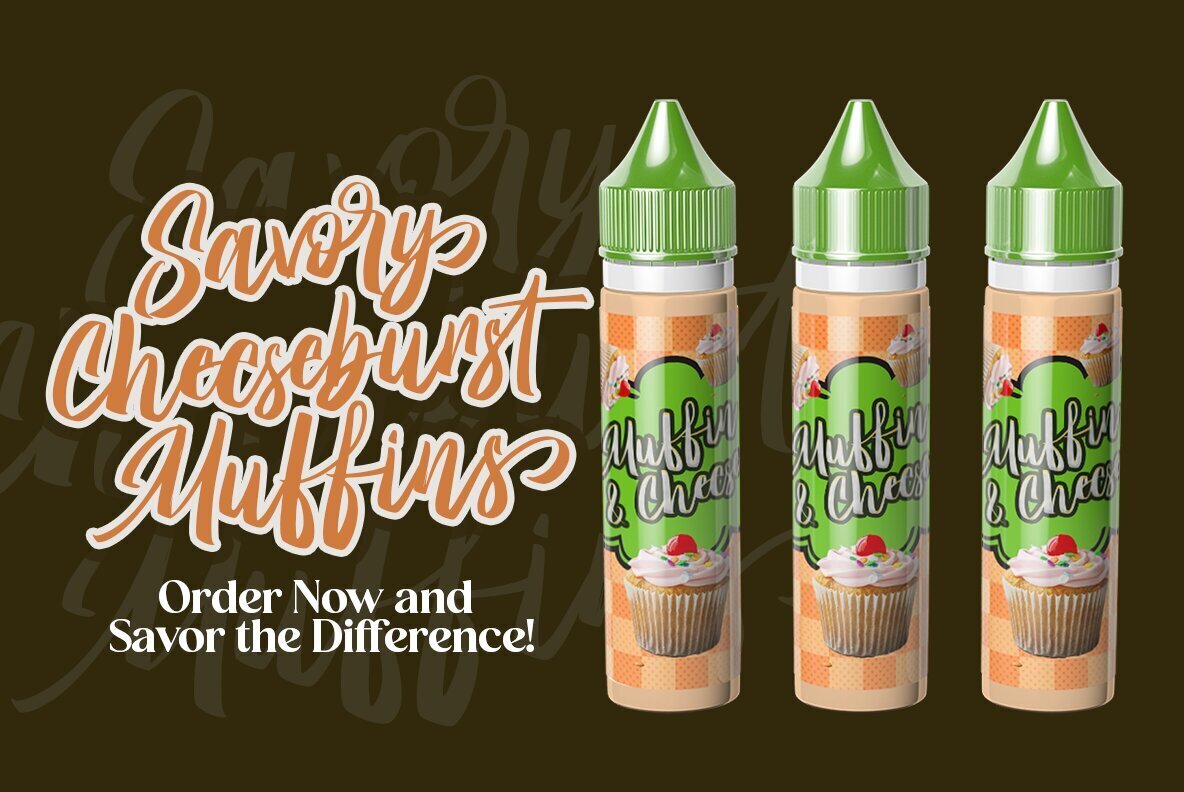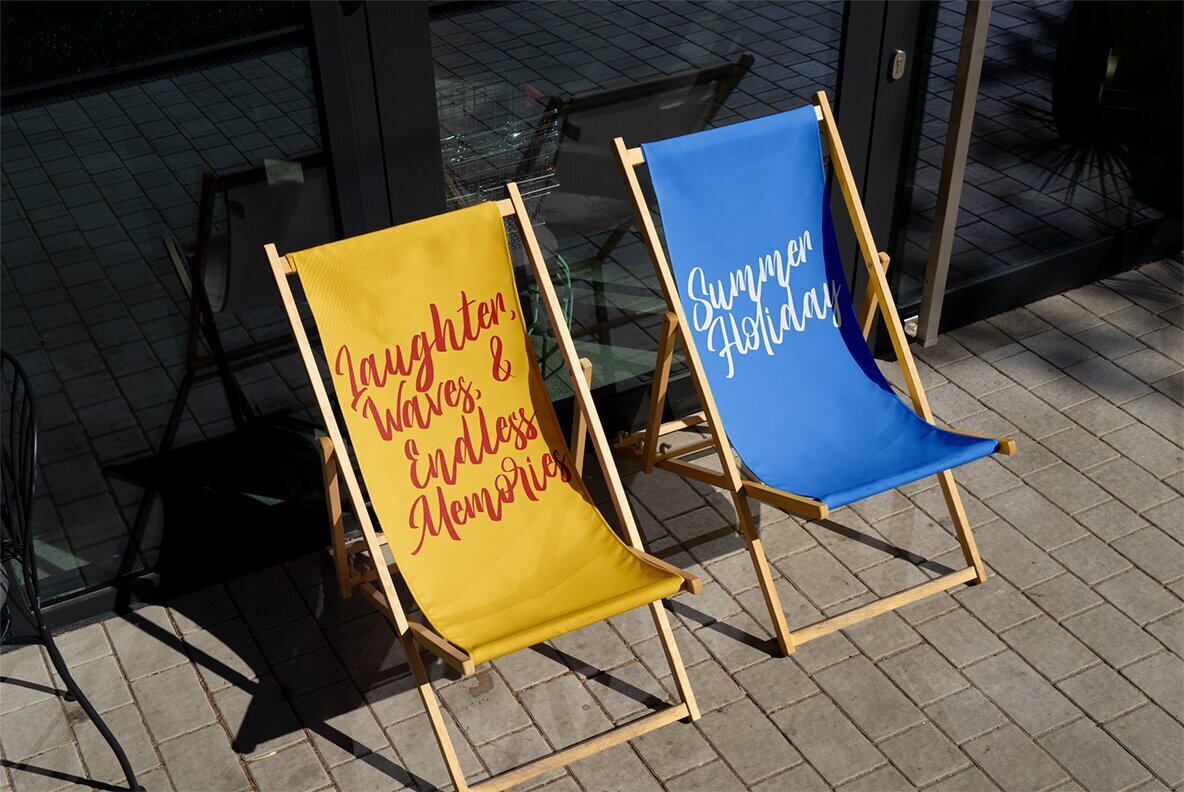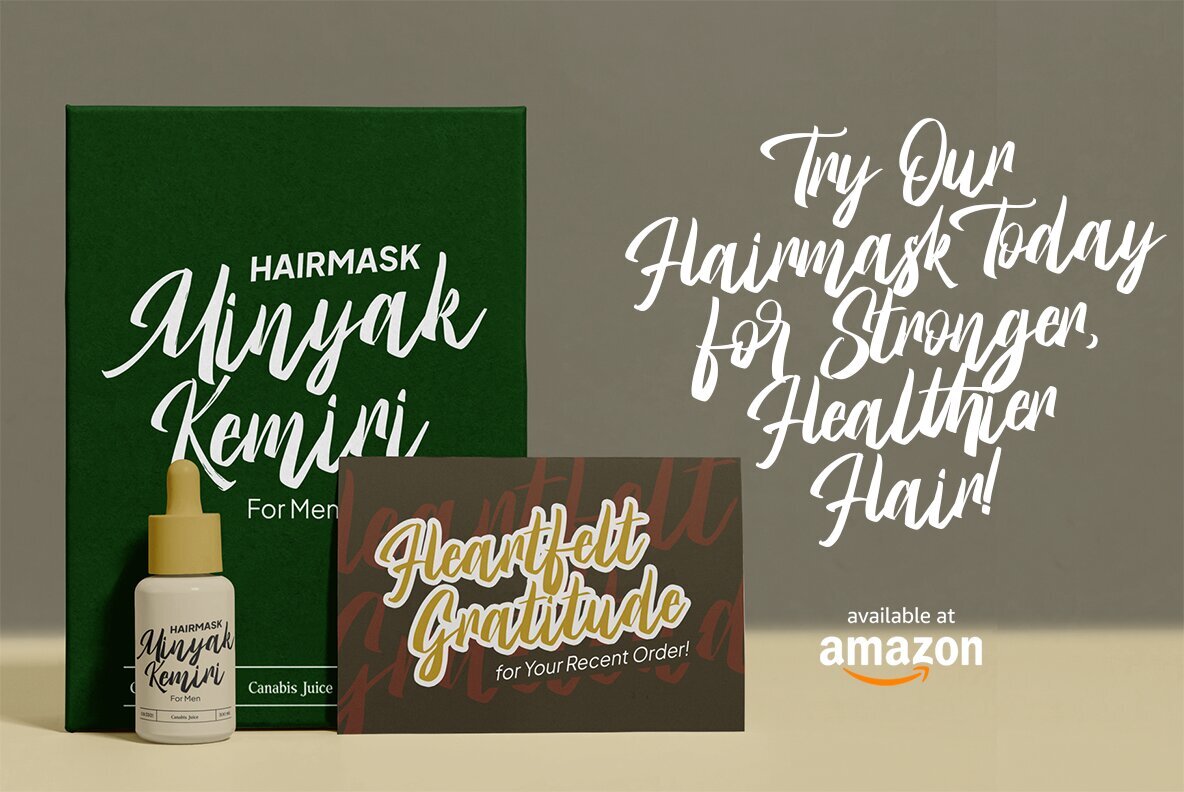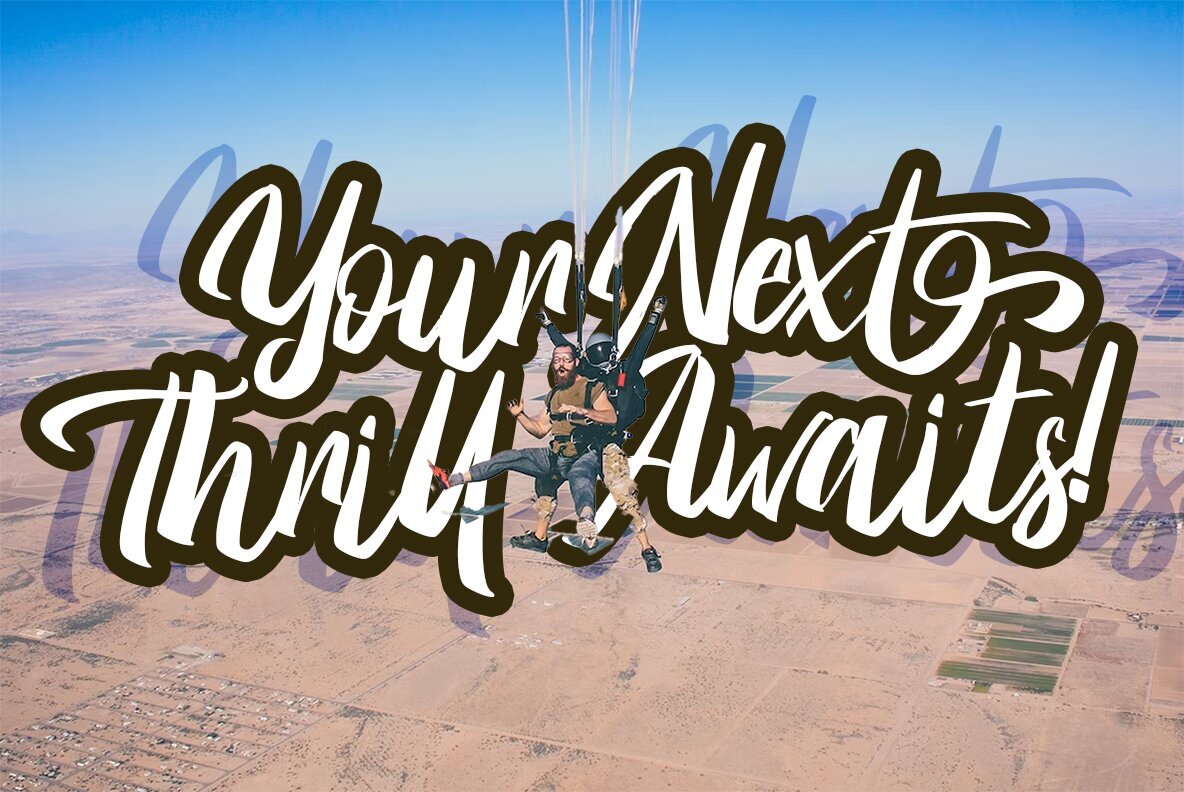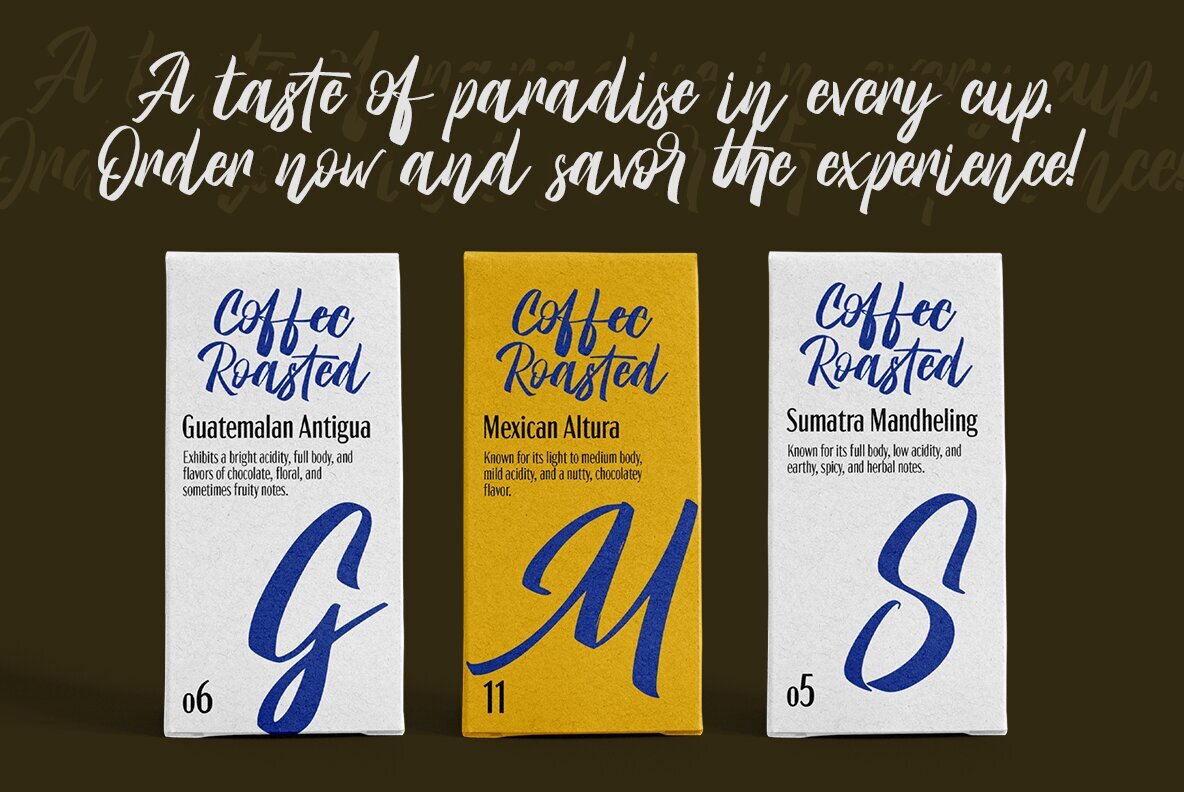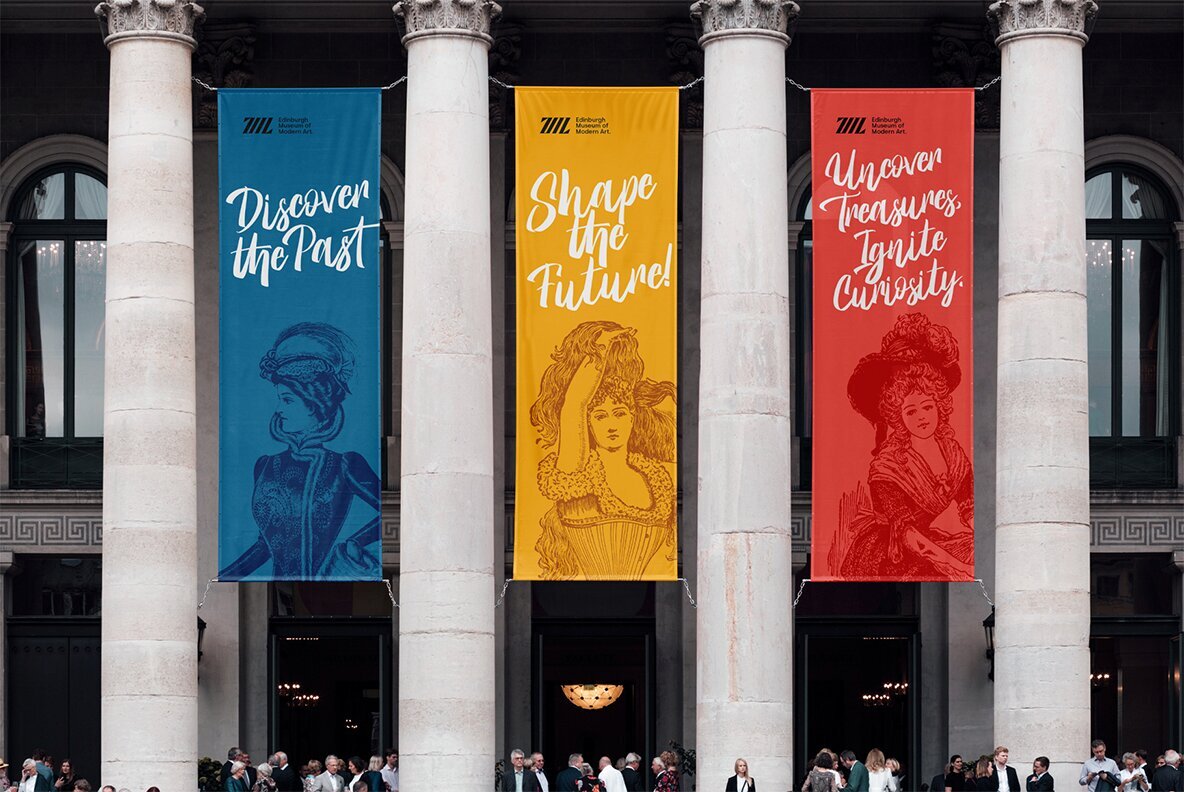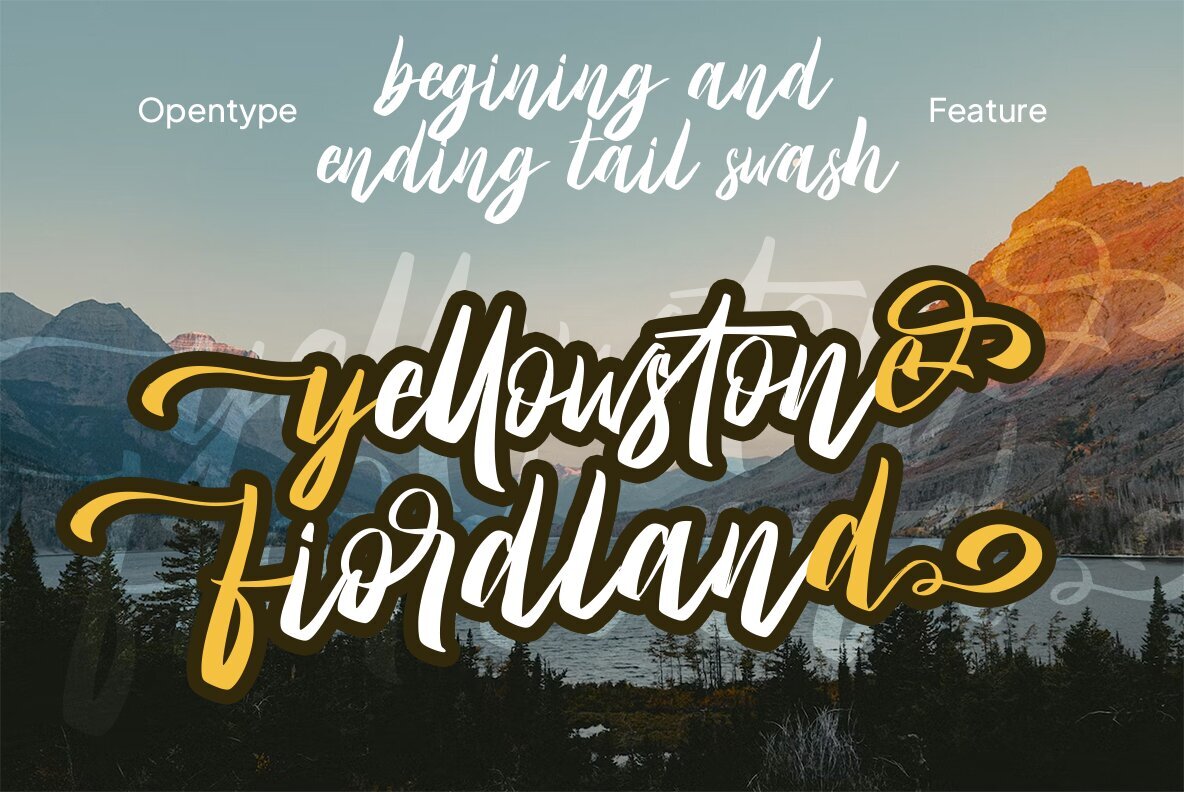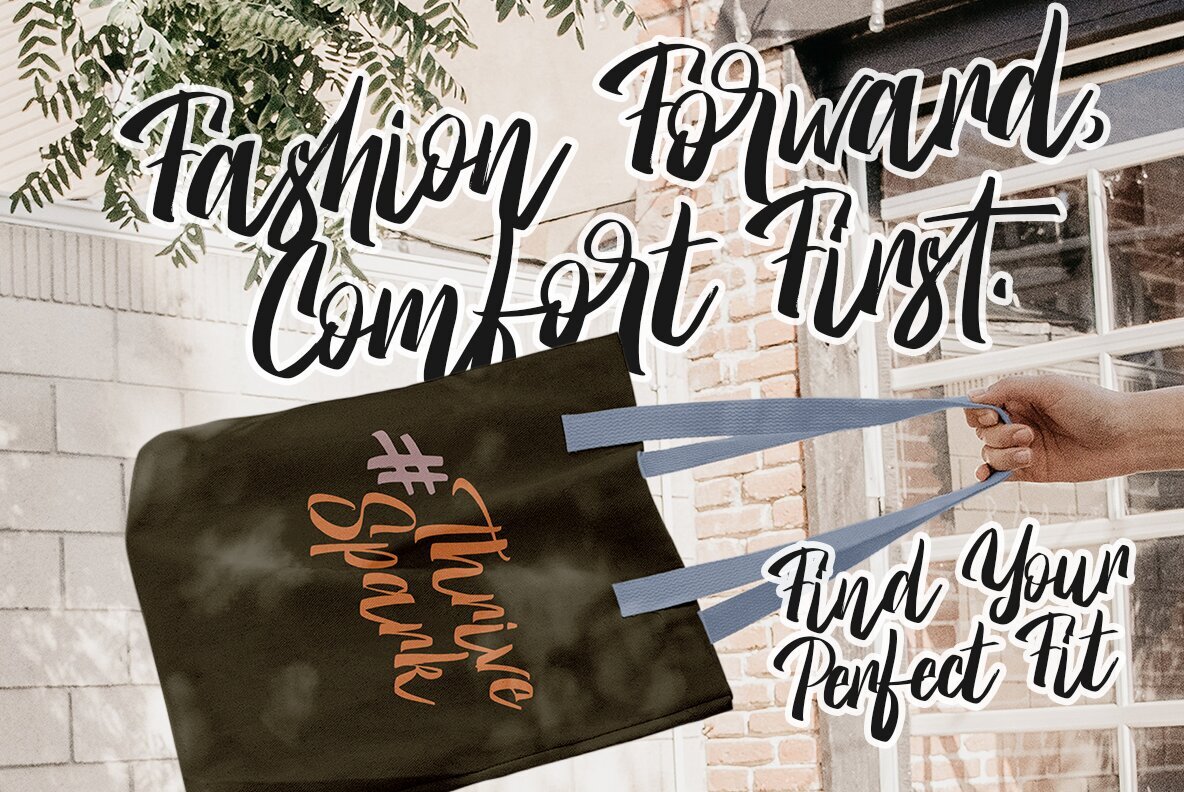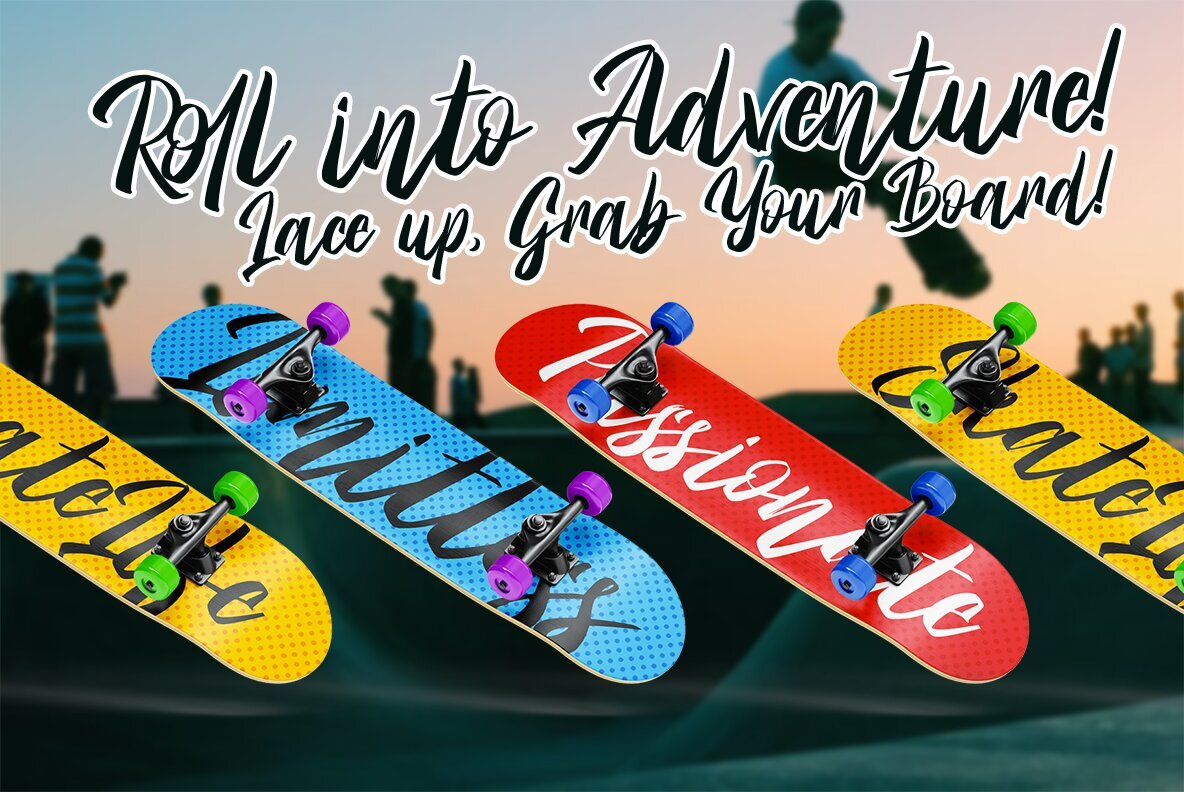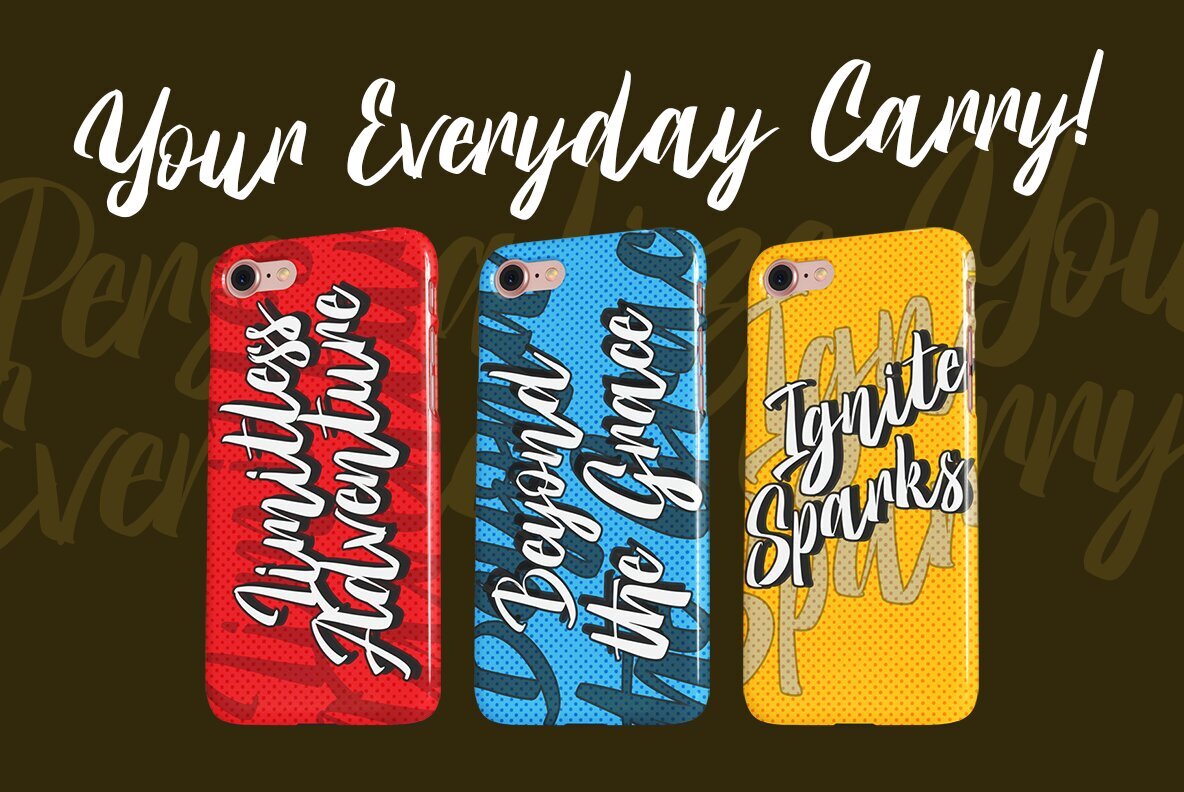
Sweet Candy Font
Sweet Candy
Dive into a world of sugary sweetness with "Sweet Candy," a playful script font designed to add a charming touch to your creative projects. Indulge your design senses with the delightful "Sweet Candy Script Font," the go-to choice for projects needing a touch of lighthearted whimsy. Sweet Candy is perfect for branding projects, logos, weddings, social media posts, advertisements, product packaging, designs, labels, photography, watermarks, invitations, stationery, and any project that benefits from a handwriting style.Sweet Candy: A Playful Script Font for Creative Projects